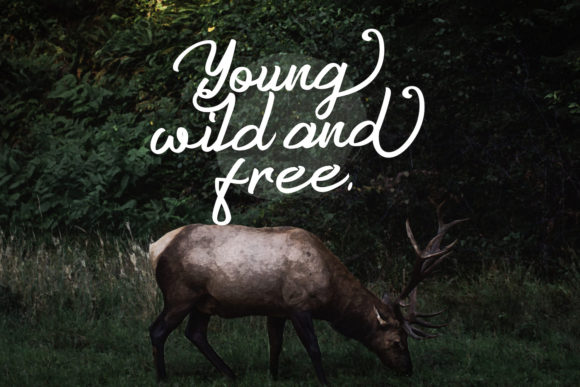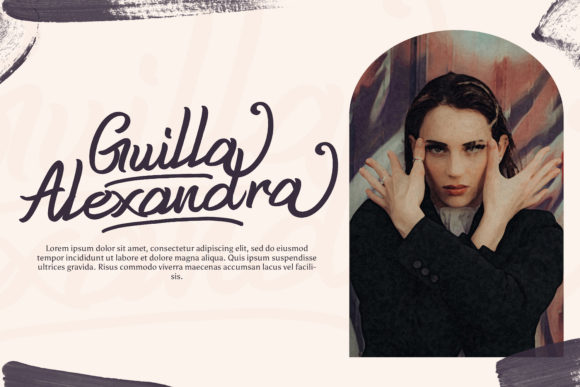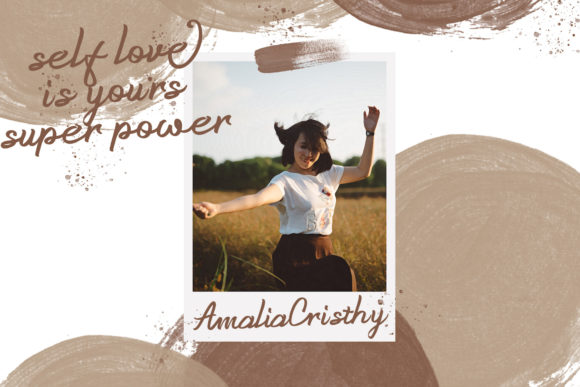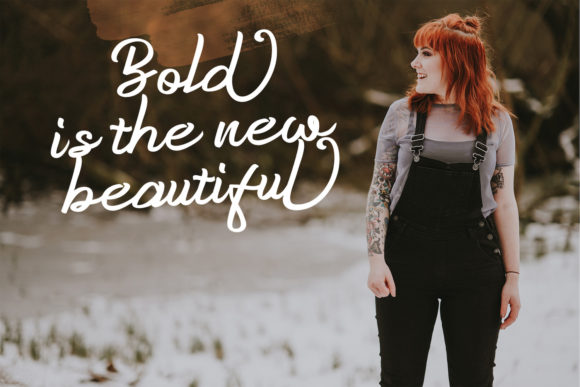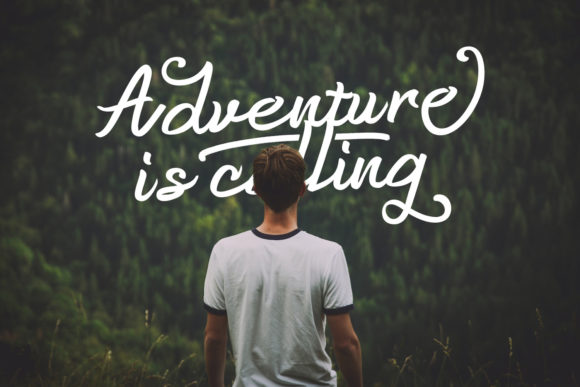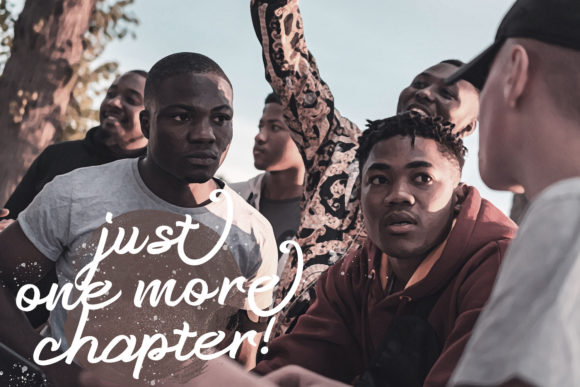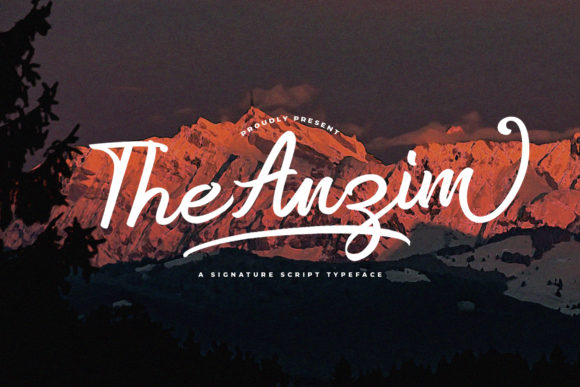
Discover the Elegance of Anzim Font: A Delicate Handwritten Masterpiece
In the world of typography, few fonts manage to capture the essence of elegance and sophistication as beautifully as the Anzim Font. This delicately designed handwritten font has been making waves among designers and crafters alike, and for good reason. Its well-rounded letters and distinct style make it a masterpiece that can elevate any design project to new heights. In this article, we’ll dive into the world of Anzim Font, exploring its unique features, uses, and why it’s become a favorite among creative professionals.
The Unique Charm of Anzim Font
Anzim Font is a true gem in the realm of handwritten fonts. Its delicate and beautifully designed letters exude a sense of elegance and refinement, making it perfect for projects that require a touch of sophistication. The font’s well-rounded letters are meticulously crafted to provide a smooth and fluid look, setting it apart from other fonts in its category. Whether you’re working on a logo, promotional material, or any other design project, Anzim Font is sure to make a lasting impression.
What Makes Anzim Font Stand Out?
So, what makes Anzim Font so special? Here are a few key features that contribute to its unique charm:
- Delicate and Elegant Design: Anzim Font boasts a delicate and elegant design that is sure to capture the attention of your audience. Its refined letters are perfect for creating sophisticated designs that exude luxury and refinement.
- Well-Rounded Letters: The font’s well-rounded letters provide a smooth and fluid look, making it perfect for use in a variety of design projects, from logos and promotional materials to headings and titles.
- Distinct Style: Anzim Font has a distinct style that sets it apart from other handwritten fonts. Its unique charm makes it a versatile font that can be used in a wide range of design projects.
Using Anzim Font in Your Design Projects
Anzim Font is an incredibly versatile font that can be used in a wide range of design projects. Here are a few ideas to get you started:
- Logos: Create a lasting impression with a logo that features Anzim Font. Its elegant design makes it perfect for use in logos for high-end brands, boutique businesses, and creative agencies.
- Promotional Materials: Use Anzim Font to create stunning promotional materials, such as brochures, flyers, and posters. Its refined letters are sure to make your marketing materials stand out.
- Headings and Titles: Add a touch of elegance to your website or blog with Anzim Font. Its well-rounded letters make it perfect for use in headings and titles.
- Stationery and Packaging: Create beautiful stationery and packaging with Anzim Font. Its delicate design makes it perfect for use in wedding invitations, business cards, and product packaging.
Why Designers and Crafters Love Anzim Font
Anzim Font has quickly become a favorite among designers and crafters, and for good reason. Here are a few reasons why:
- Ease of Use: Anzim Font is incredibly easy to use, making it perfect for designers and crafters of all skill levels.
- High-Quality Design: The font’s high-quality design ensures that it will look great in any design project, from print materials to digital applications.
- Versatility: Anzim Font is an incredibly versatile font that can be used in a wide range of design projects, making it a valuable addition to any design library.
In conclusion, Anzim Font is a delicate and beautifully designed handwritten font that is sure to capture the hearts of designers and crafters alike. Its elegant and well-rounded letters make it a masterpiece that can elevate any design project to new heights. Whether you’re working on a logo, promotional material, or any other design project, Anzim Font is a great choice. So why not give it a try and see the difference it can make in your designs?